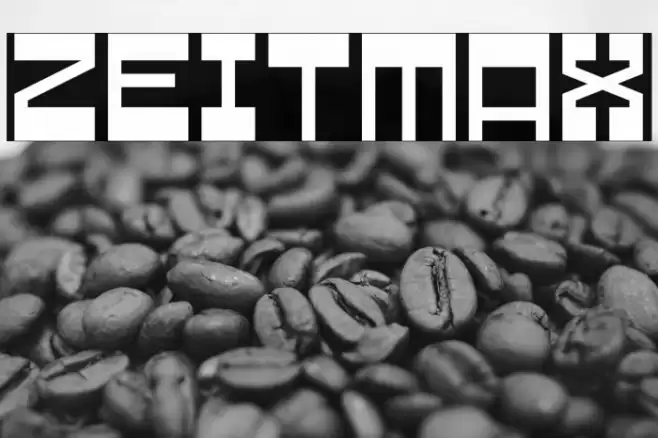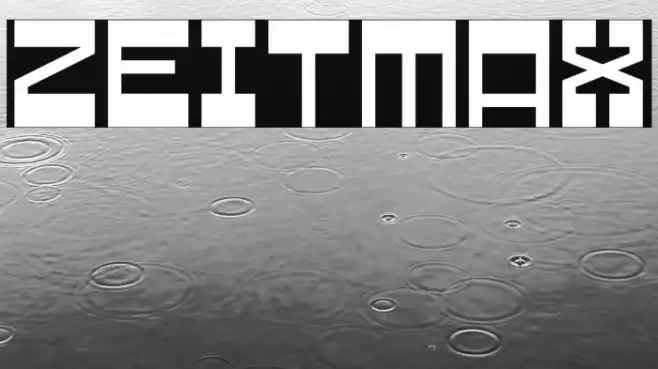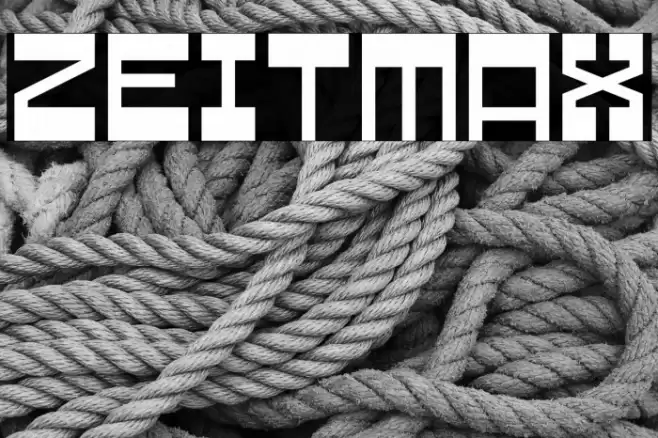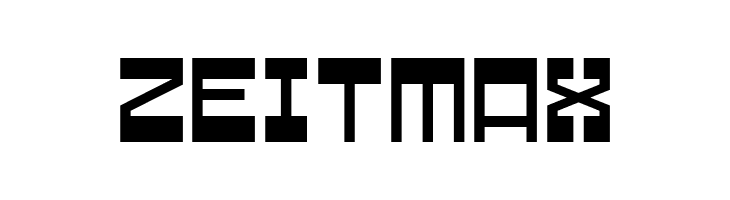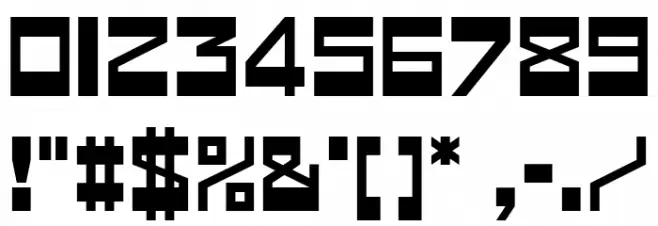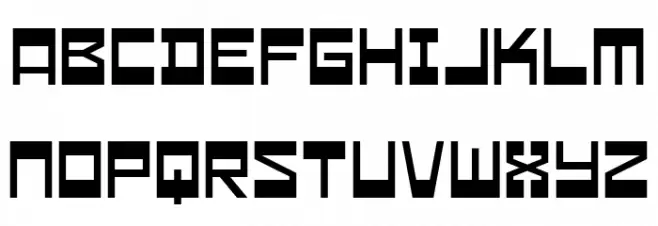
Zeitmax Font
This font features a bold and geometric design, characterized by its blocky and angular letterforms. The uppercase and lowercase letters maintain a consistent width, creating a uniform appearance. The numbers and special characters follow the same geometric style, enhancing the overall cohesiveness of the font. The sharp angles and straight lines give it a futuristic and modern feel, making it stand out in any design. The font's structure is robust and solid, making it suitable for impactful headlines and titles. Its unique style is eye-catching and can be used to convey a sense of strength and innovation.
A bold, geometric font with angular letterforms and a modern, futuristic style from Uncategorized fonts.
- Proposed Projects: Ideal for technology branding, sci-fi posters, video game titles, and modern advertising.
- Use Case: Headlines, Logos